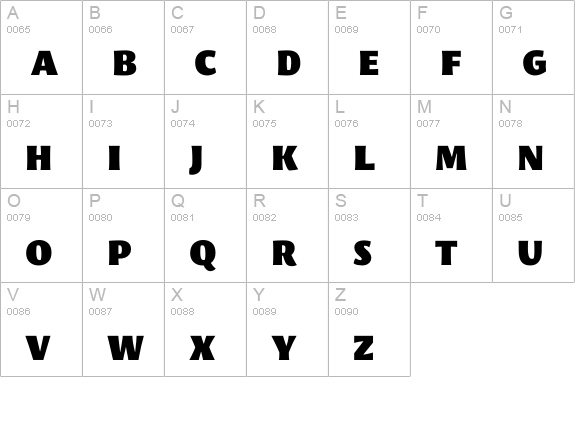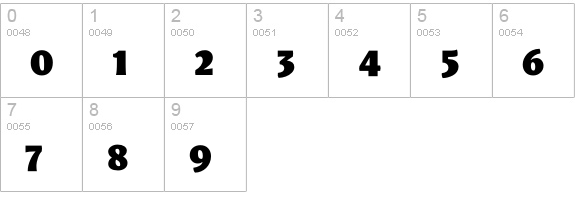
Leksa Sans Black is a maximum-weight, dramatic variant in the Leksa typeface family \xE2\x80\x94 well suited to maximum-impact headlines, posters, and packaging.
Leksa Sans Black font is a bold and powerful typeface that exudes confidence and strength. Its sleek and modern design makes it perfect for headlines, posters, and branding projects that require a strong visual impact. The thick strokes and clean lines of Leksa Sans Black give it a commanding presence on the page, while still maintaining a sense of elegance and sophistication. This versatile font is suitable for a wide range of applications, from editorial design to advertising and everything in between. Whether you're creating a bold statement piece or simply looking to add a touch of modernity to your project, Leksa Sans Black has you covered. Best of all, Leksa Sans Black is available for free download at FontsMarket.com, making it easily accessible to designers and creatives looking to elevate their work with this striking typeface. Don't miss out on the opportunity to add Leksa Sans Black to your font library and take your designs to the next level.